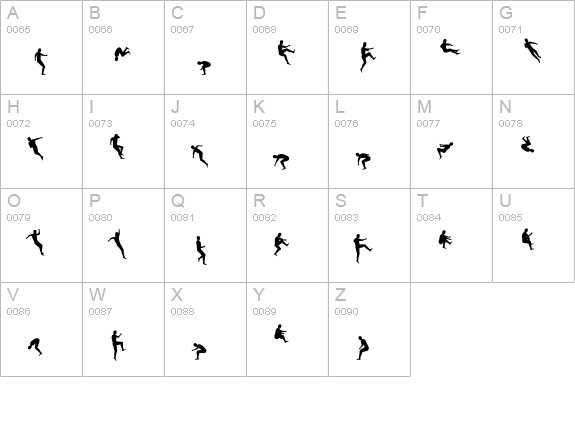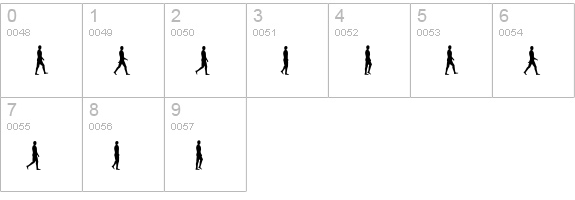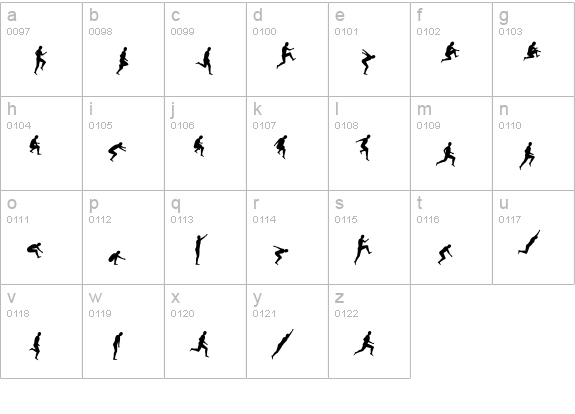
Swifty Font Details
Introducing Swifty font - a modern and stylish typeface that exudes elegance and sophistication. With its sleek lines and contemporary design, Swifty is the perfect choice for projects that require a touch of class. Whether you're designing a logo, creating a poster, or working on a branding project, Swifty font will elevate your work to the next level. And the best part? Swifty font is available for free download at FontsMarket.com. That's right, you can add this stunning font to your collection at no cost, making it an incredible value for any designer or creator. Don't miss out on the opportunity to enhance your projects with Swifty font - download it today and see the difference it can make!